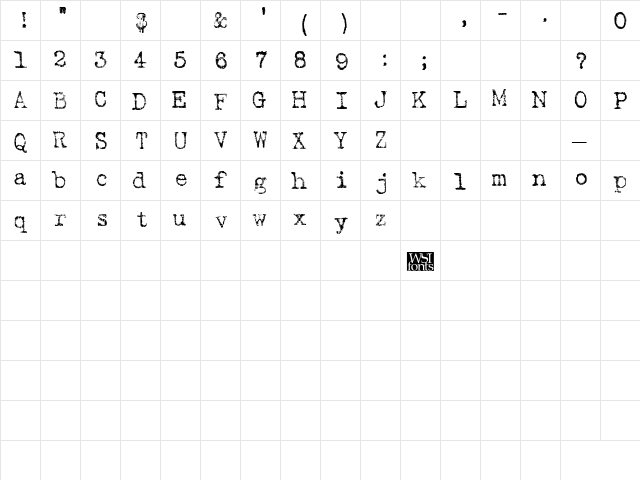
TypewriterRough Regular
Design Context for TypewriterRough Typeface
TypewriterRough trades polish for personality, using distressed and eroded forms to bring grit and attitude to creative work.
A strong fit for alternative music projects, graffiti-adjacent design, and anything that deliberately resists polish.
Pro Tip: Use TypewriterRough at larger sizes where the texture and irregularity of each letterform can be clearly seen — it loses its character at small sizes.